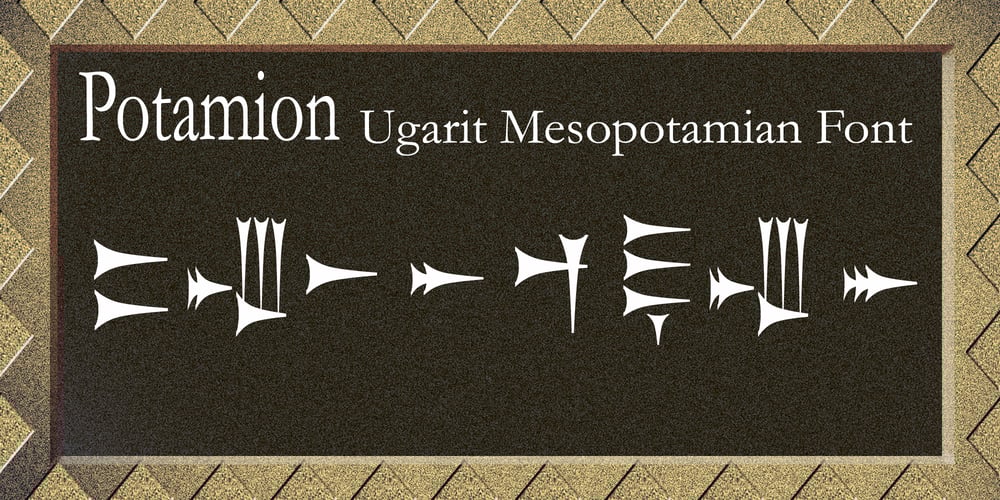
Potamion
Potamion font
Potamion Font Family was designed by bsmbang wisudyantoro and published by Beewest Studio. Potamion contains 1 styles and family package options. The Ugaritic alphabet is a script with ancient letters that was used around 1400 BC. Ugarit is an Old Southwest Semitic language and was found in Ugarit, a place in Syria. It has 30 letters. Other languages ​​(especially Hurrian) are sometimes written in the Ugaritic script in the area around Ugarit